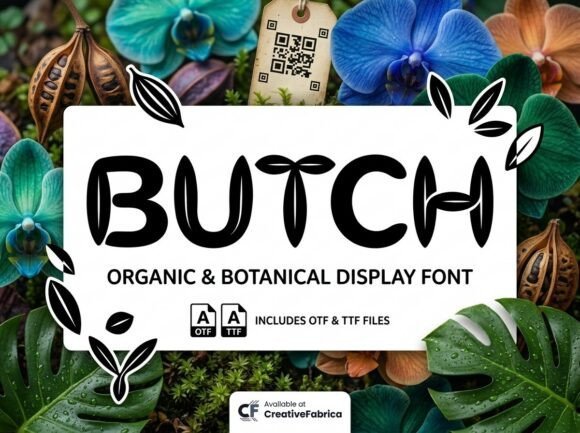
Meet Your New Creative Sidekick: Butch Font
Have you ever stared at a blank canvas, itching to unleash a bold statement that screams ‘I’m here, I’m noticed, and I’m unforgettable’? That’s where Butch Font comes in – a game-changing, avant-garde display font engineered to be the focal point of any composition. Crafted for the fearless and the fearless-at-heart, this typeface embodies a commanding visual personality, replete with unique artistic flourishes that are sure to turn heads.
Whether you’re a seasoned designer or a creative just starting to find your footing, Butch Font is an invaluable addition to your toolkit. Its high-end, polished finish makes it suitable for luxury packaging, while its artistic soul lends itself perfectly to experimental editorial layouts. With Butch Font, the possibilities are endless, and the results are guaranteed to be nothing short of spectacular.
Butch Font Key Features
- Font Style: Butch is a sans-serif font with a bold and rugged feel, suitable for headlines and titles.
- Unique Characteristics: Butch features a distinctive, hand-drawn feel with bold lines and geometric shapes, making it ideal for use in posters, flyers, and other marketing materials.
- Font Weight and Variations: Available in several weights, including light, regular, bold, and black, allowing for flexibility in design applications.
Butch Font Review
As a designer, I’ve had the chance to work with Butch Font, and here’s my honest take on it.
- Unique Character: Butch Font has a distinctive, bold personality that sets it apart from other fonts. Its rough-around-the-edges aesthetic makes it perfect for projects that need a bit of grit.
- Versatility: Despite its bold nature, Butch Font can be used in a variety of settings, from headings to body text, and even for logos and other visual identities.
- Customizability: The font’s OpenType features allow for some great customizations, making it easy to fine-tune the look to fit your project’s needs.
- Readability: While Butch Font is great for headings and titles, it can be a bit challenging to read in large blocks of text due to its irregular letterforms.
- Limited Language Support: As a relatively new font, Butch Font may not have the same level of language support as more established fonts.
Butch Font is a great addition to any designer’s toolkit, especially for projects that need a bold, eye-catching look. While it may have some limitations, its unique character and versatility make it a valuable resource. With some careful planning and placement, Butch Font can help take your designs to the next level.
Butch Font is a great choice for Canva designs, particularly for quotes, posters, and social media graphics.
Butch Font is a versatile font that works well for a variety of projects, including logos, brochures, and infographics.
Butch Font is a great choice for presentations, reports, and documents that require a bold and eye-catching font.
Butch Font is commonly used for:
- Quotes and posters
- Infographics and data visualizations
Remember to use Butch Font in conjunction with other design elements to create a visually appealing and effective design.
Yes, Butch is a monoline font, which means that all the lines of the font have the same thickness. This feature makes Butch particularly suitable for use in logos, titles, and other display typography where a consistent line width is desired.
What is the recommended font size for using Butch?
The recommended font size for using Butch depends on the design context and the intended audience. However, as a general guideline, it’s recommended to use Butch at a minimum font size of 12 points for body text and larger sizes for headings and titles.